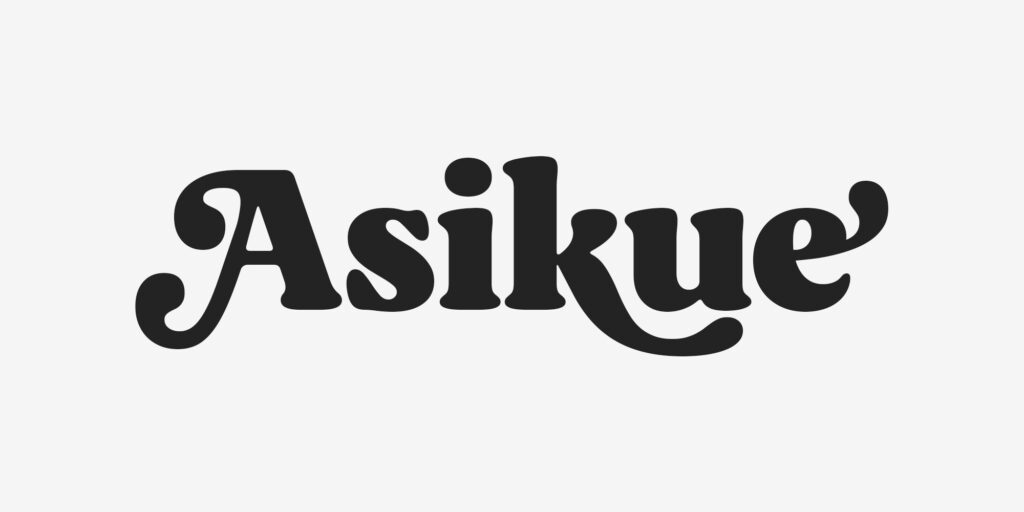
Be bold, be creative, be you.
Bold Playful Display Font for Fun & Friendly Branding
• Bold & rounded shapes: Easy to read and visually appealing for all ages
• Playful & energetic: Instantly grabs attention with a cheerful attitude
• Versatile uses: Ideal for kids’ products, F&B, packaging, posters, branding, and creative projects
Light up your designs with Asikue a bold, playful display font created to make every project fun, friendly, and full of energy.
With chunky, rounded letterforms and cheerful vibes, Asikue is your go to font for projects that need to stand out and make people smile. Perfect for kids’ branding, snack and drink packaging, event posters, logos, and social media graphics, Asikue turns any message into a celebration. Its quirky style and approachable look make it a hit for brands targeting children, families, or anyone who loves a splash of happiness in their visuals.